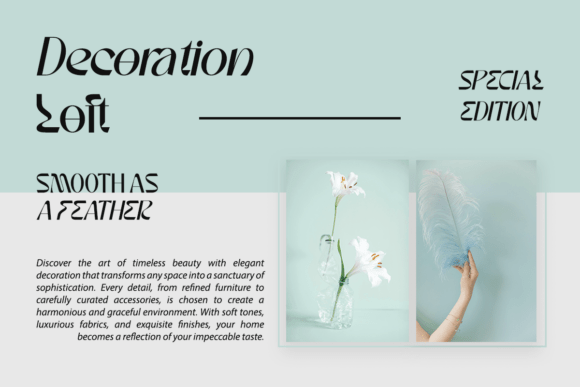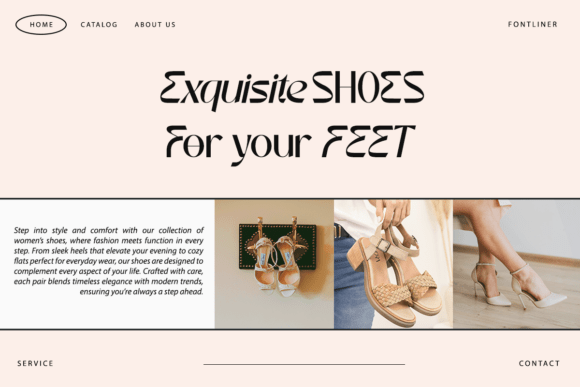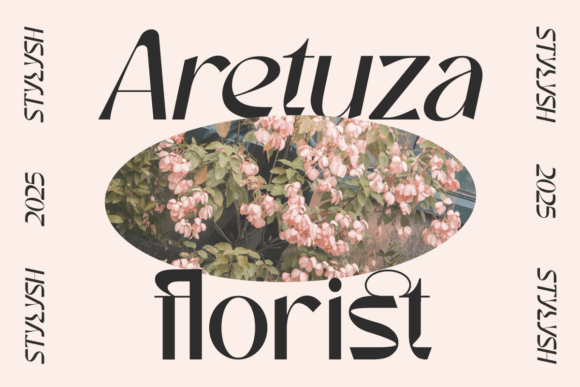
Introduction to Noaction Font
Have you ever found yourself staring at a blank page, waiting for the perfect font to bring your creative project to life? That’s where the Noaction Font comes in – a sleek, modern typeface that adds a touch of elegance to any design. With its beautiful contrast and pure lines, this font is the perfect resource for designers looking to elevate their work.
Whether you’re working on a branding project, crafting a magazine layout, or designing a website, the Noaction Font is a valuable addition to your design arsenal. Its high-quality design and versatility make it an ideal choice for a variety of creative projects. And the best part? You can download it for free, giving you the freedom to experiment with its many features and create something truly unique.
Key Features of Noaction Font
- High-quality design resource suitable for creative projects
- Unique, modern design style with a transparent background
- Includes a wide range of glyphs and characters for versatility
Honest Review: Noaction Font
I recently had the chance to work with the Noaction Font in one of my creative projects and I must say, it’s been a game-changer. This design resource is a high-quality font that’s perfect for any project that requires a unique and modern touch.
One of the things that I appreciate about the Noaction Font is its versatility. It comes in a variety of styles and weights, making it easy to use in different contexts. The transparent background also makes it easy to overlay on top of other design elements, which is a huge plus.
Here are some of the things that I like about the Noaction Font:
- ✨ Versatile and comes in a variety of styles and weights
- ✨ Transparent background makes it easy to overlay on top of other design elements
However, I do have to mention a few limitations:
- ⚠️ The font may not be suitable for projects that require a lot of bold text, as it can be difficult to read in certain contexts
Overall, I’m really impressed with the Noaction Font and I think it’s a great addition to any designer’s toolkit. With its high-quality design and versatility, it’s perfect for a wide range of creative projects. And the best part? It’s available for free download, making it an excellent resource for designers on a budget.
Noaction Font
Tips for Getting the Most Out of Noaction Font
To get the most out of the Noaction Font, use it in combination with other design elements, such as images or graphics. Experiment with different font sizes and colors to achieve the desired effect.
The Noaction Font is commonly used in graphic design, web design, and digital marketing projects. It’s perfect for creating eye-catching headings, titles, and captions.